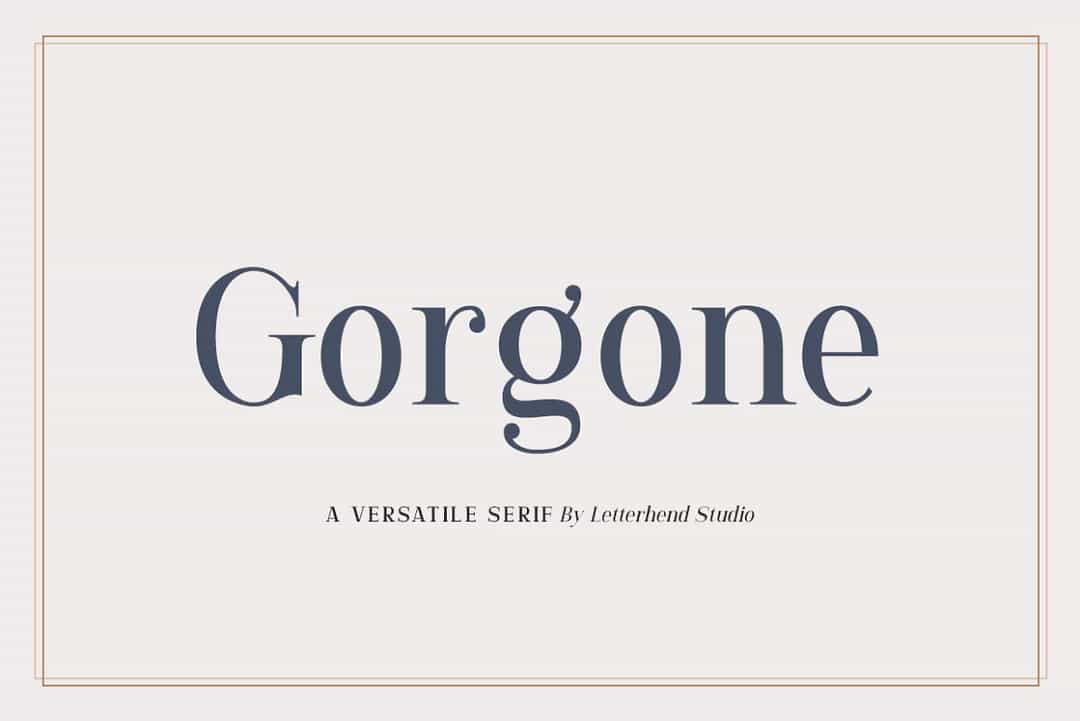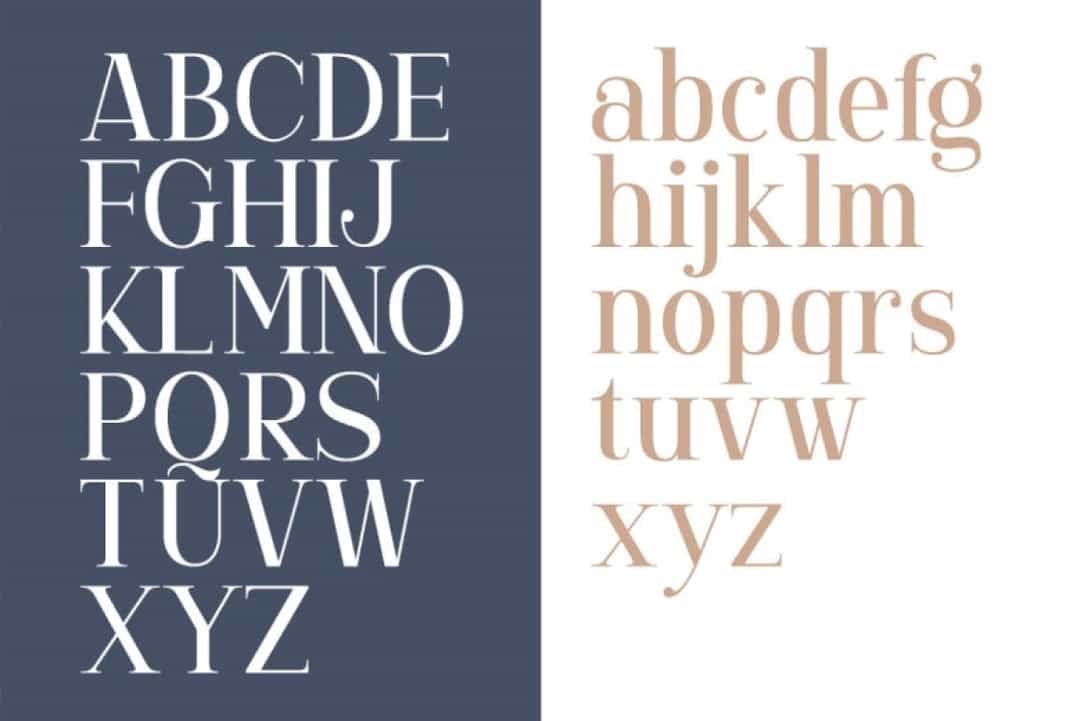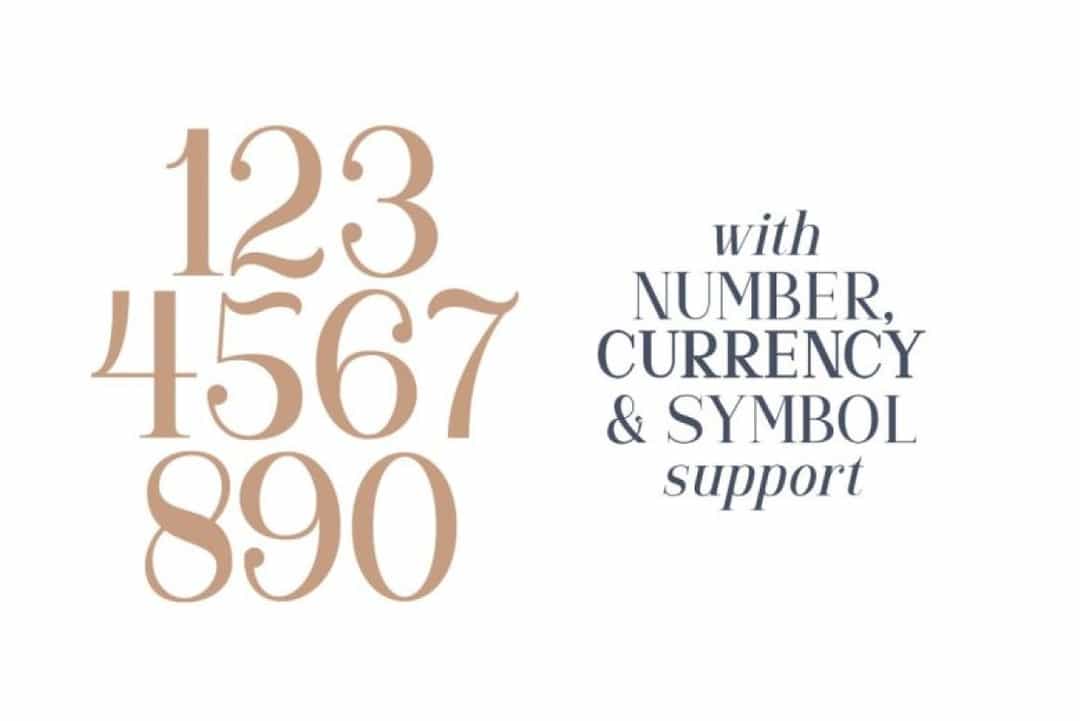
Discover Gorgone Font, part of the Serif collection—a versatile and unique font perfect for adding a personal touch to your projects. Download it for free and enjoy crafting designs with style, from invitations to social media posts. This font is available exclusively for personal use, giving you the freedom to create without limits. Unlock your creativity with Gorgone Font today!
Gorgone Serif Font is Here! This elegant serif font offers multiple applications and gives a luxurious aesthetic, making it suitable for headlines, logotypes, invitations, apparel packaging branding advertising campaigns or more.